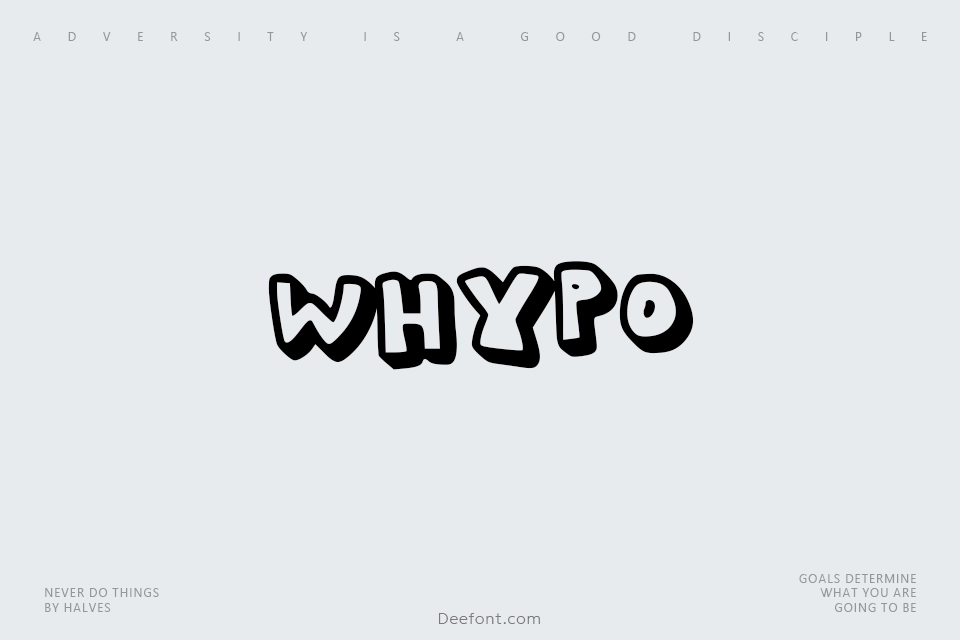
Whypo Font
Whypo is a playful and bold display font featuring a cartoonish style with thick, rounded edges and a three-dimensional shadow effect that gives it a dynamic, lively appearance. The uppercase letters are prominent with slightly irregular forms, adding to its whimsical charm. With 135 carefully crafted characters and excellent spacing, Whypo excels at capturing attention and conveying fun and creativity. Ideal for children’s books, comic strips, playful branding, event posters, and any project requiring a touch of humor and lightheartedness.